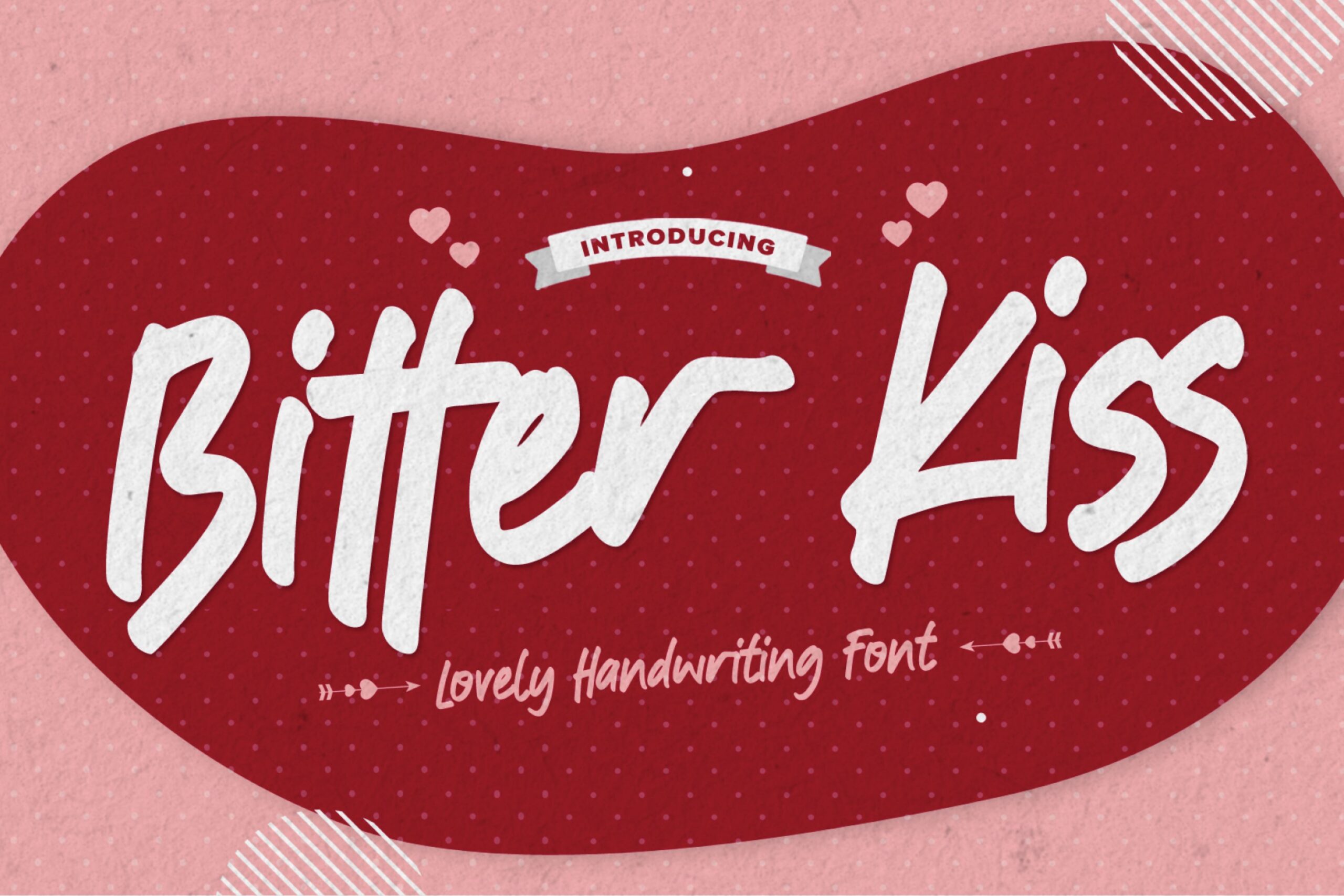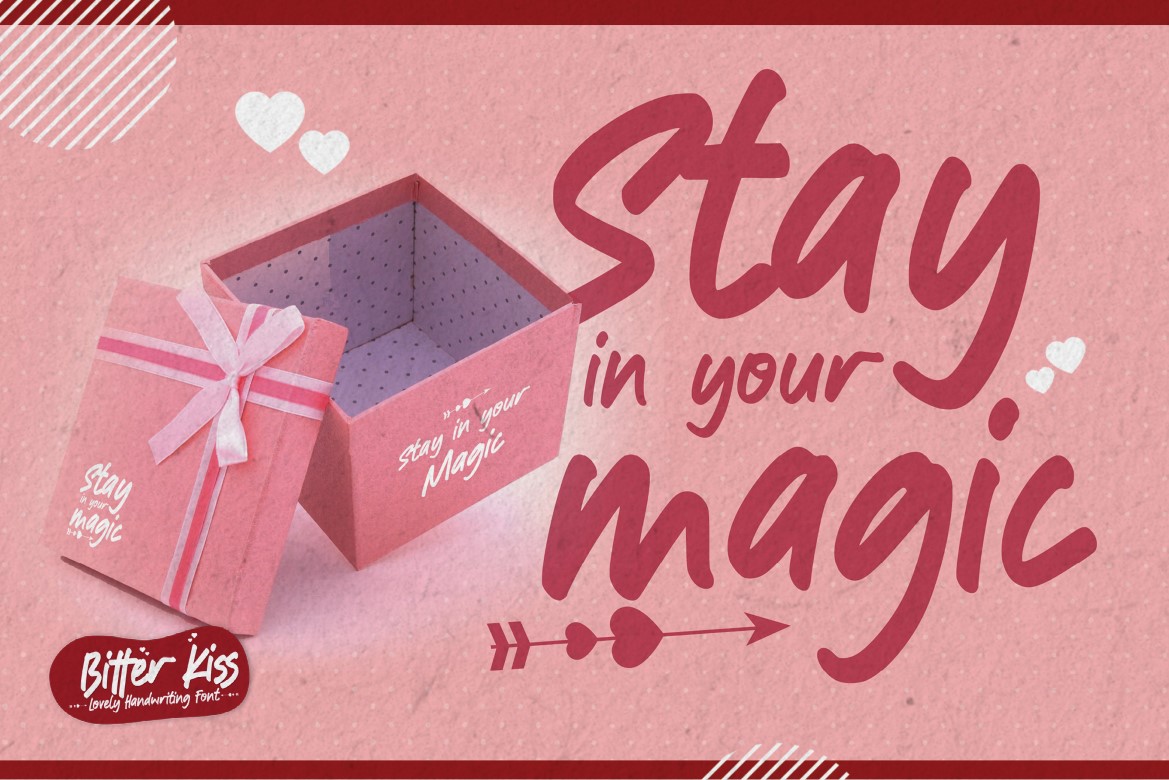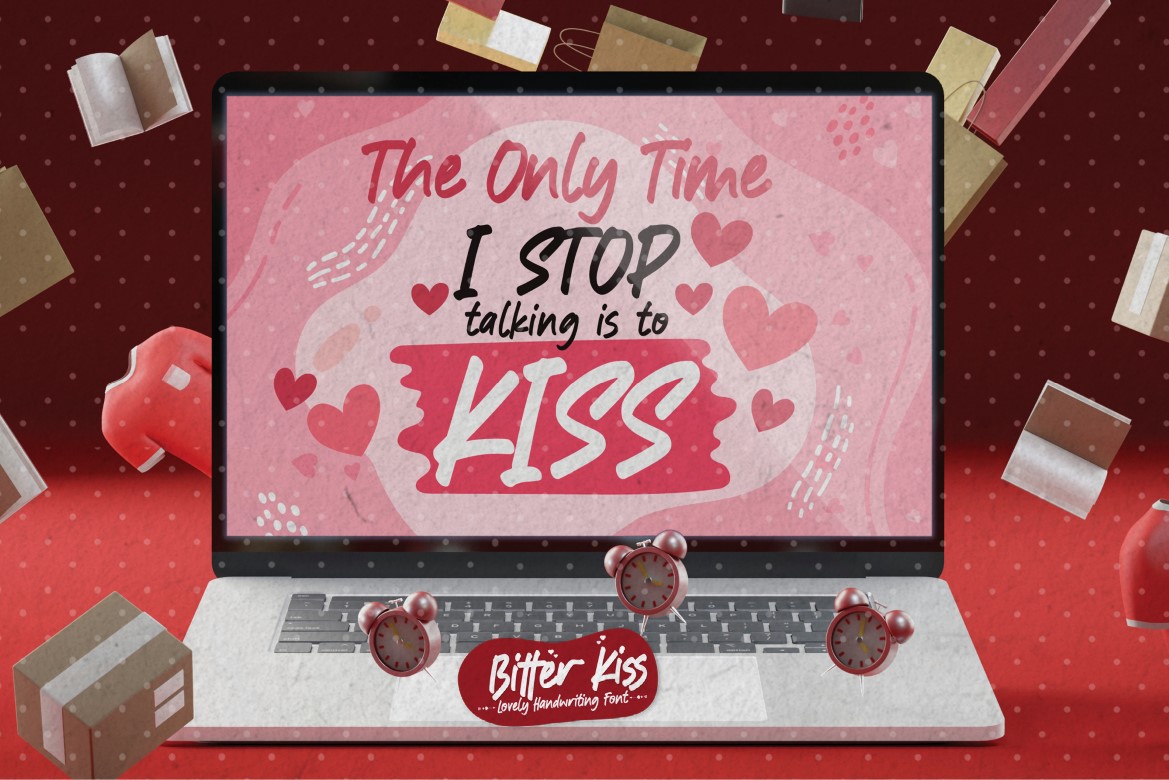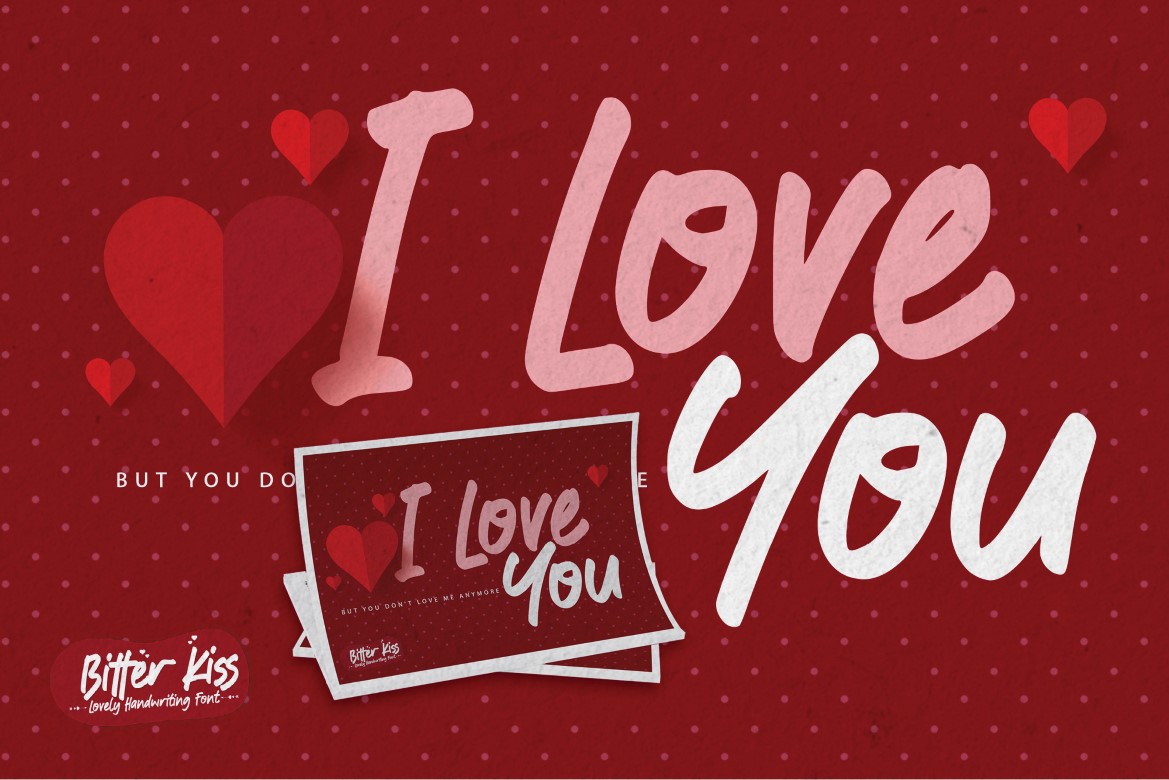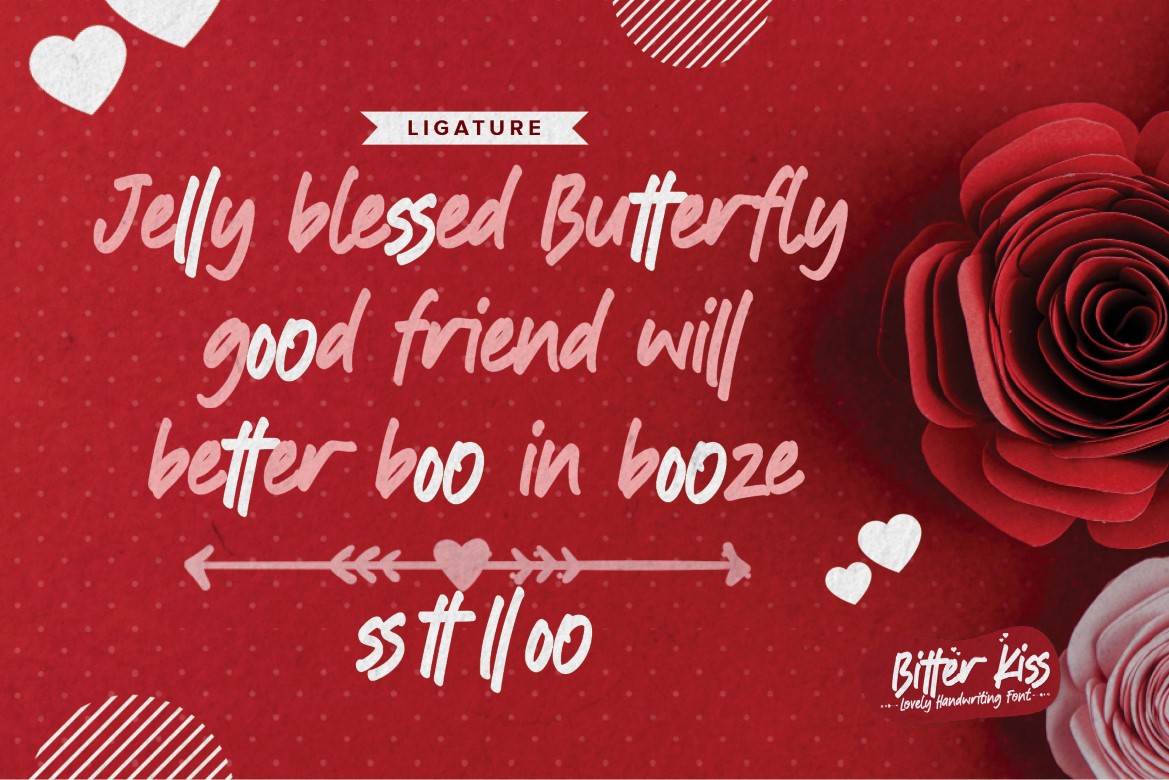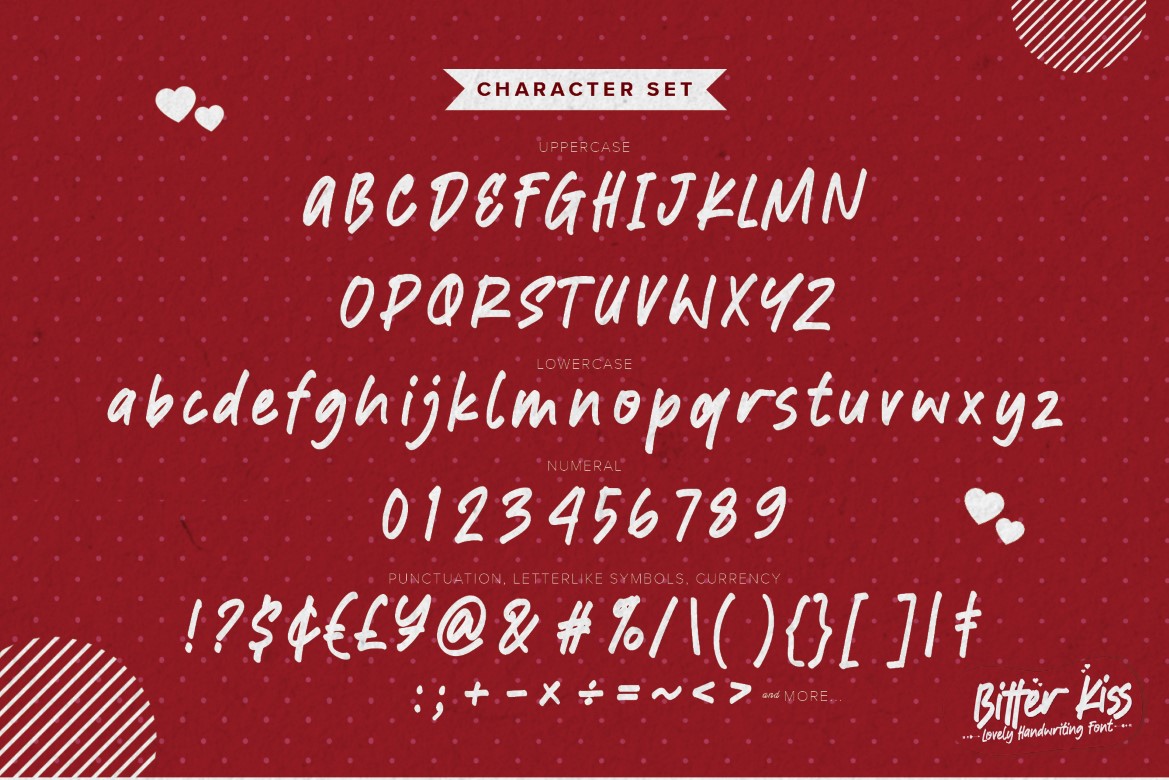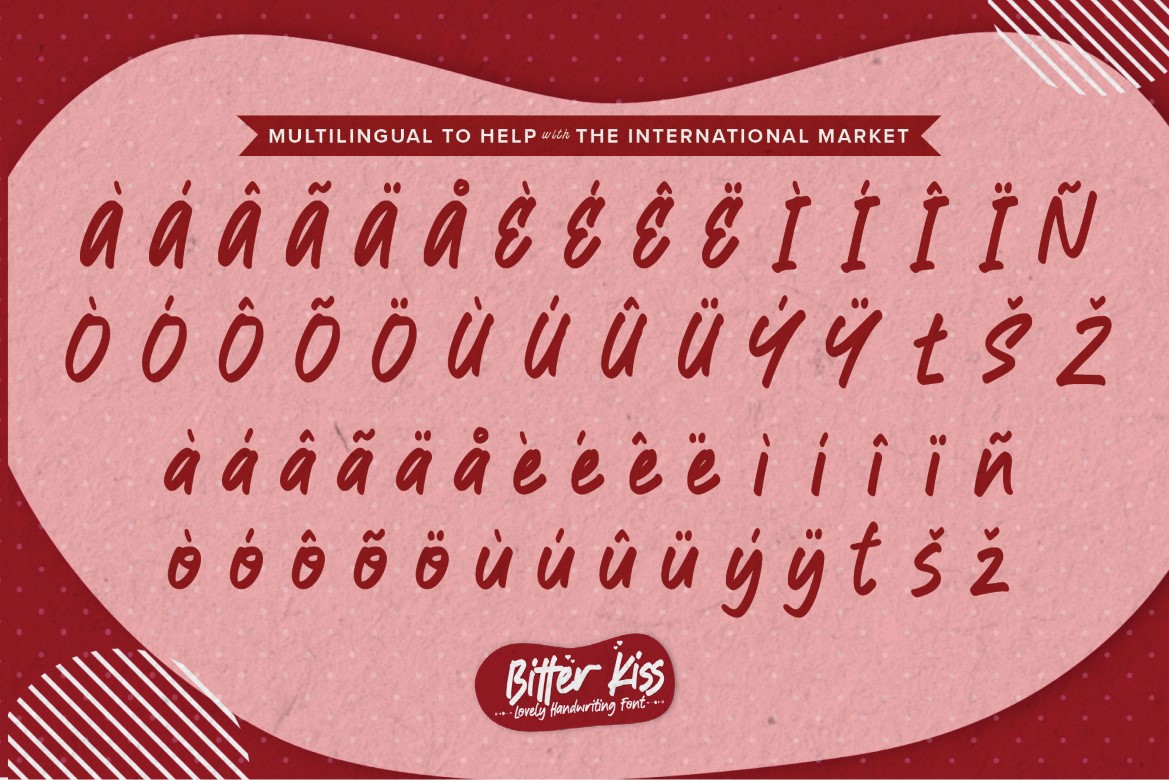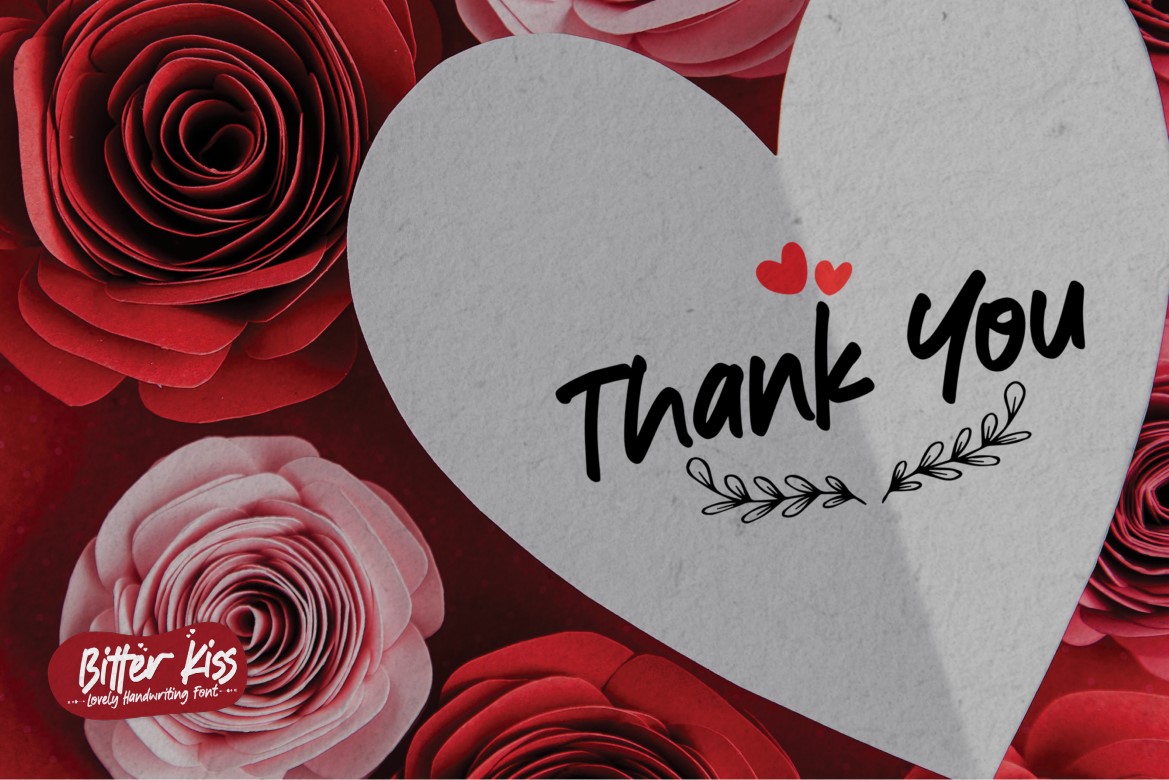
Bitter Kiss – Lovely Handwritten Font, authentic style and dramatic movement that is written casually and quickly.
The best for poster,project , designs look modern, unique and fun. It’s perfect for labels, quotes, posters, DIY projects, branding, packaging, greeting cards, websites, photography overlays, signs, scrapbooking, tags and so much more! graffiti style with a fun theme very good for graffity poster, flyer. That is why Bitter Kiss has a classic , and unique characteristic more natural look. You can activate Alternates glyphs OpenType panel.